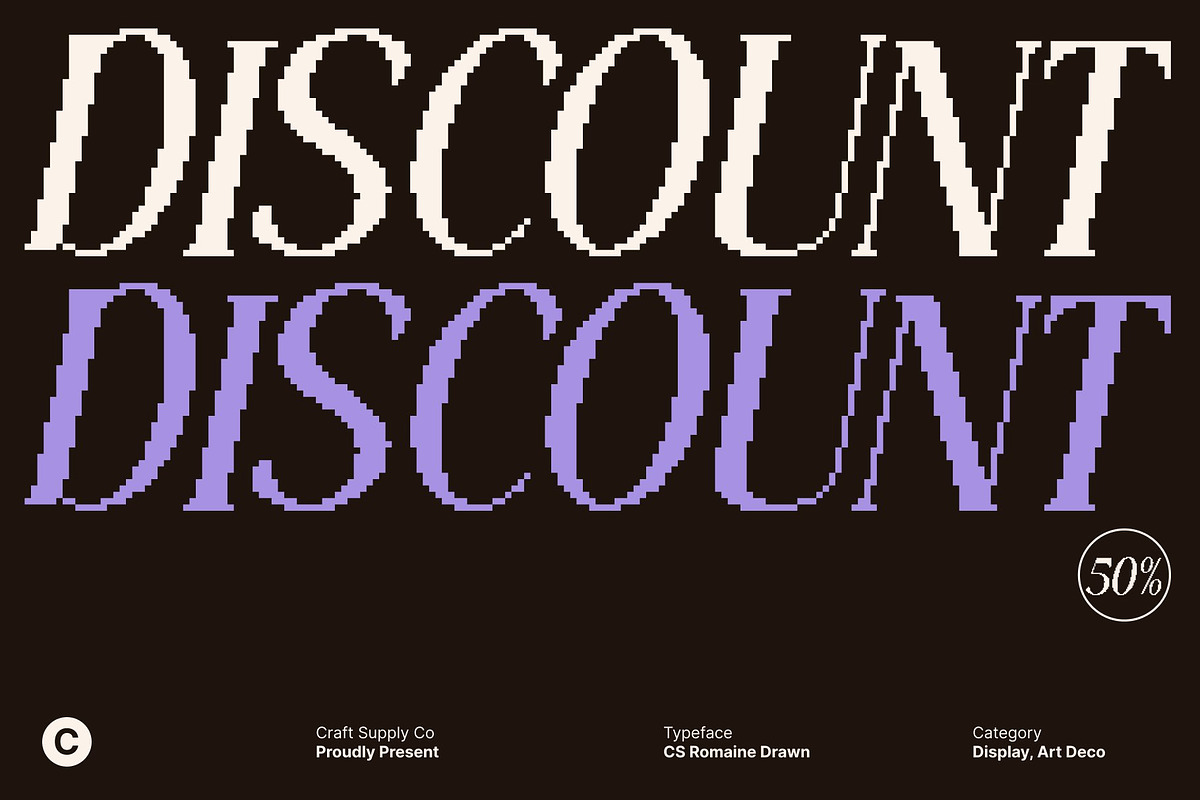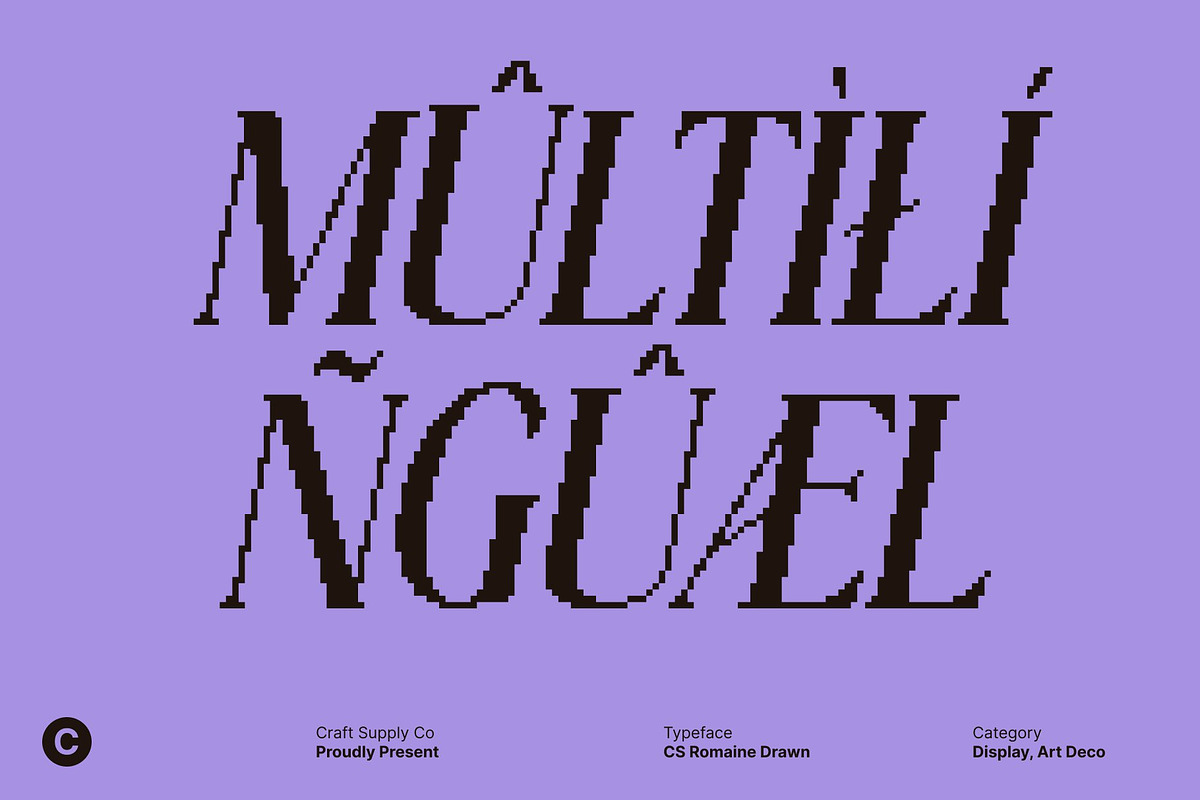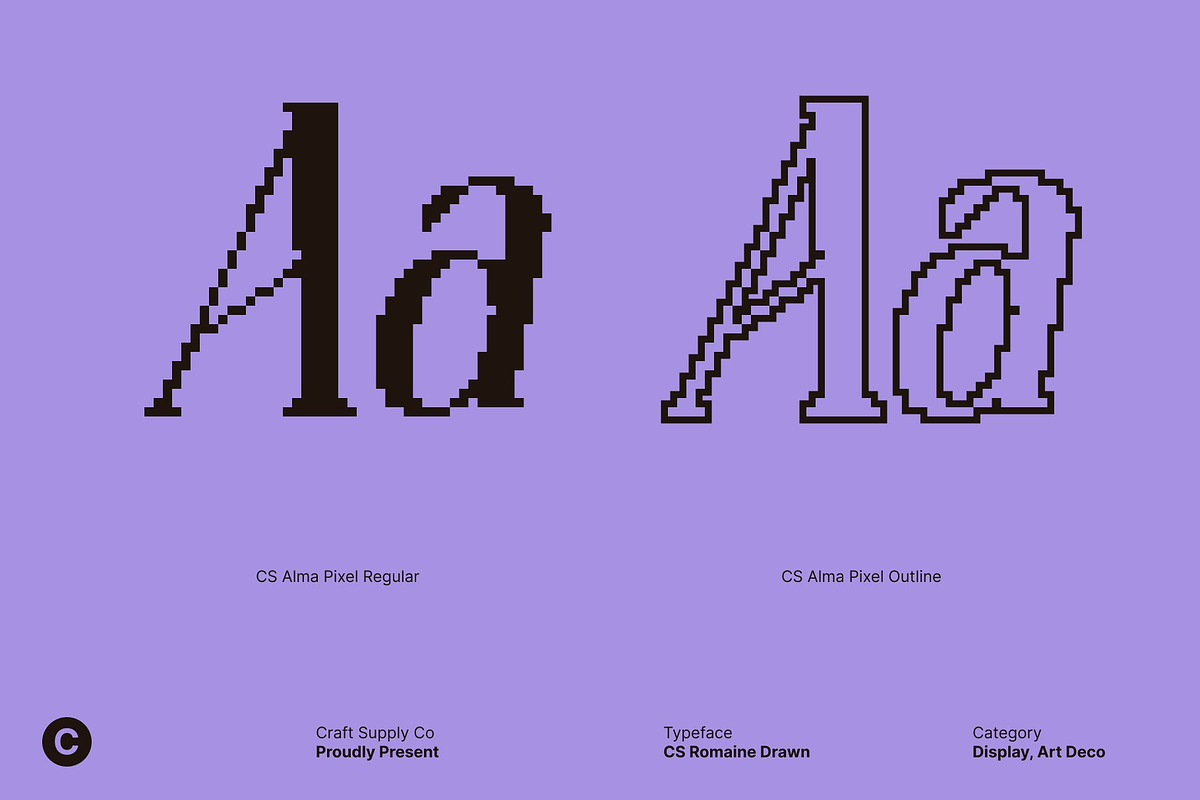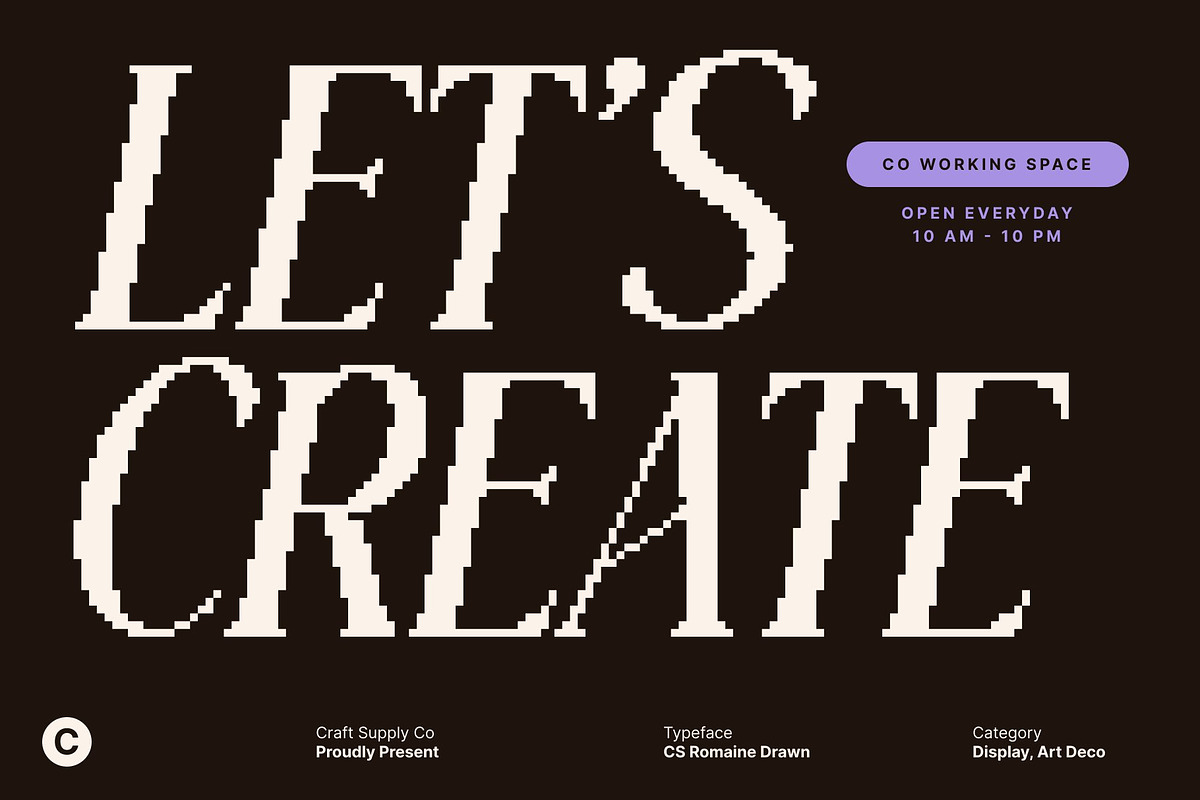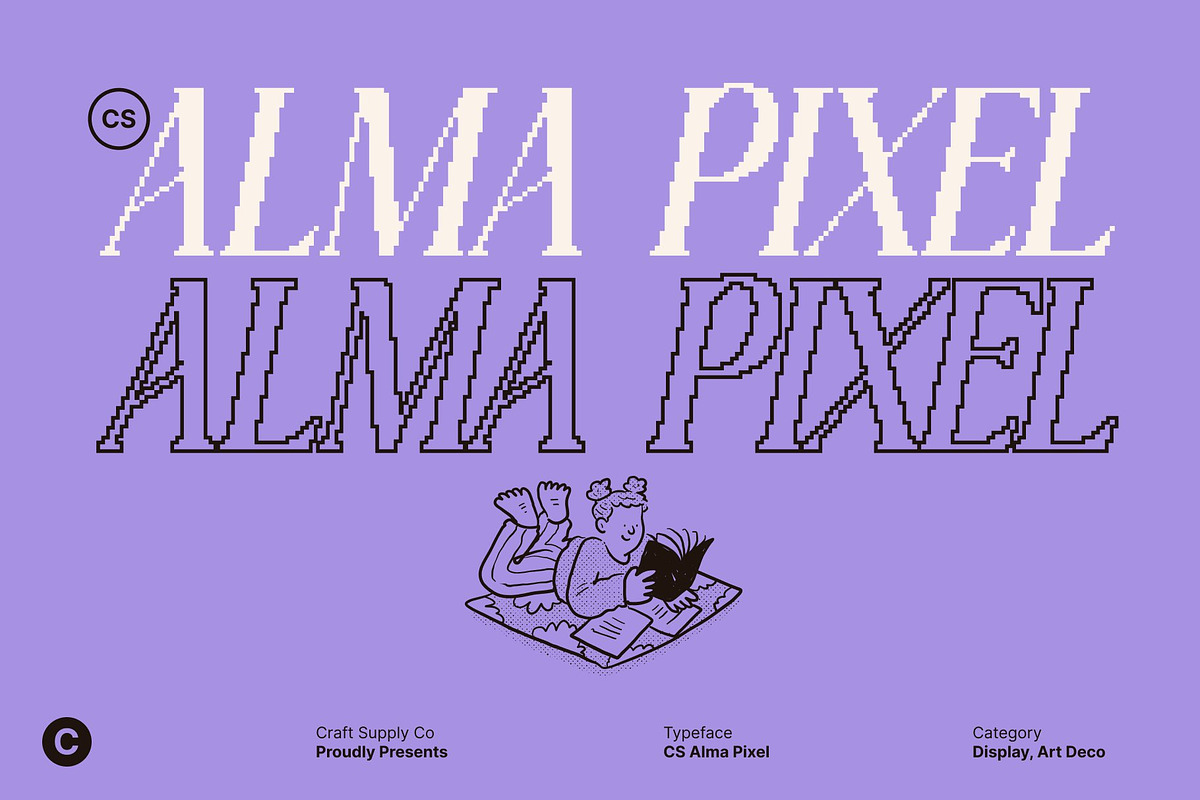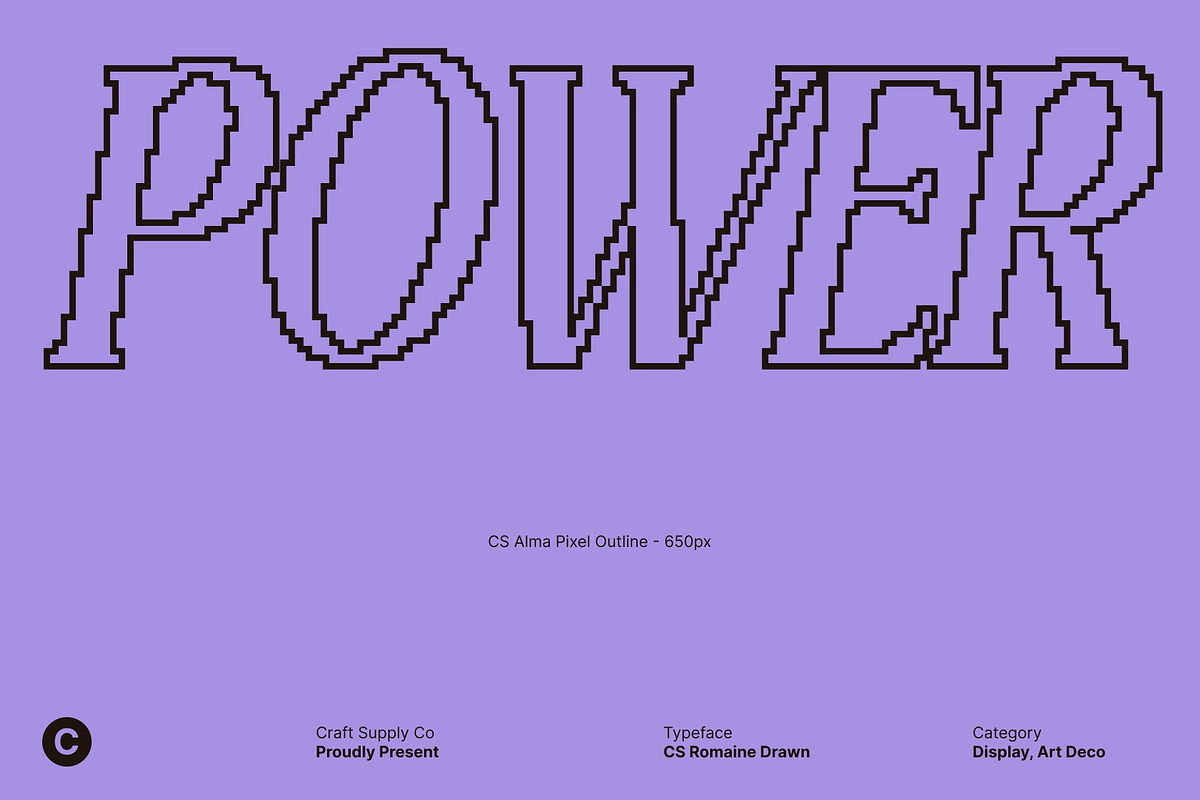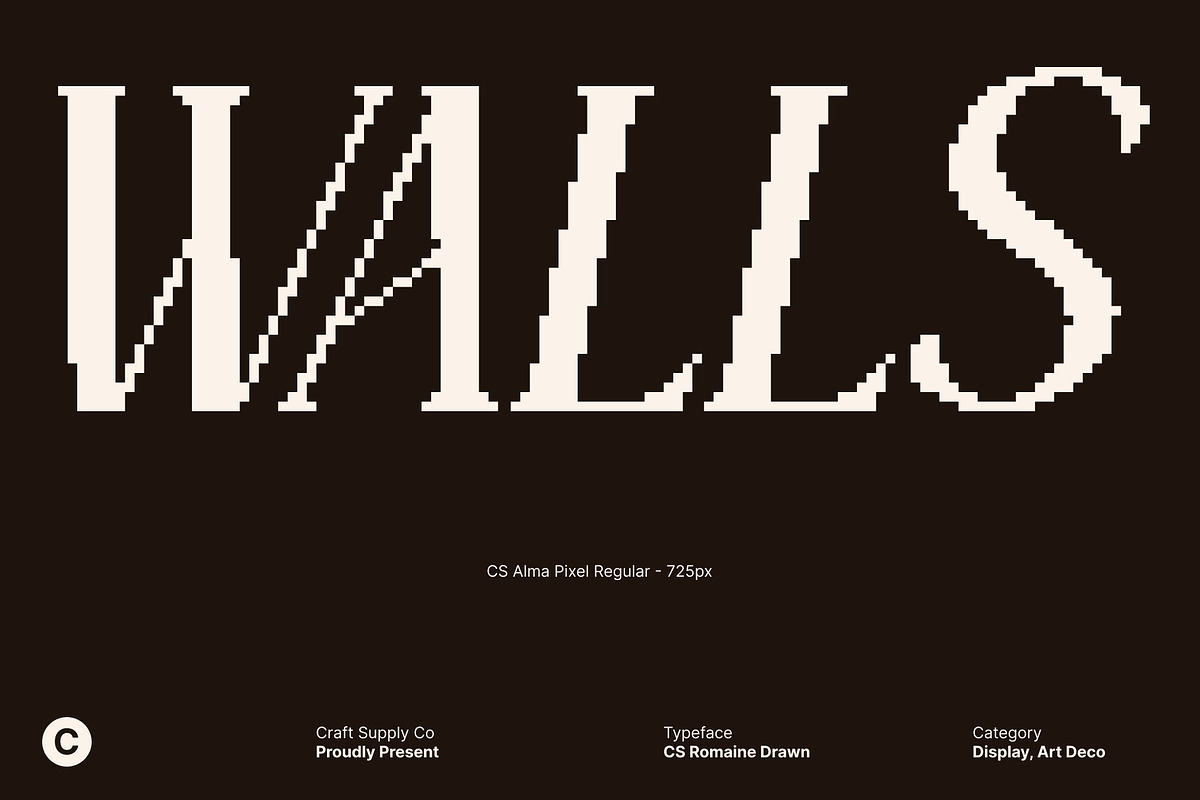
CS Alma Pixel
CS Alma Pixel – Condensed Modern Serif with Contemporary Elegance
Condensed Modern Serif Design This is a condensed modern serif font crafted to express elegance through refined proportions and a confident contemporary structure. Its narrow letterforms create a strong vertical rhythm, allowing layouts to feel sophisticated, efficient, and visually striking. The overall construction feels poised and modern, making it ideal for high-end visual communication.
Graceful Long Serif Details A defining characteristic of this font lies in its long, slim serifs. These delicate details add a sense of luxury and finesse, enhancing the flow of each character without compromising clarity. The serif extensions feel intentional and balanced, delivering a polished and elevated typographic presence.
Modern Shape with Elegant Character Blending classic serif refinement with a modern sensibility, maintains a fresh and stylish appearance. Its contemporary shapes keep the font relevant, while the condensed form introduces a fashion-forward edge that stands out subtly and tastefully.
Perfect for Luxury and Editorial Applications This font excels in luxury branding, editorial layouts, posters, and refined headlines. Whether used for fashion campaigns, premium packaging, magazine design, or elegant digital presentations, it communicates sophistication, confidence, and modern luxury with precision and grace.
CS Alma Pixel Regular
CS Alma Pixel Outline